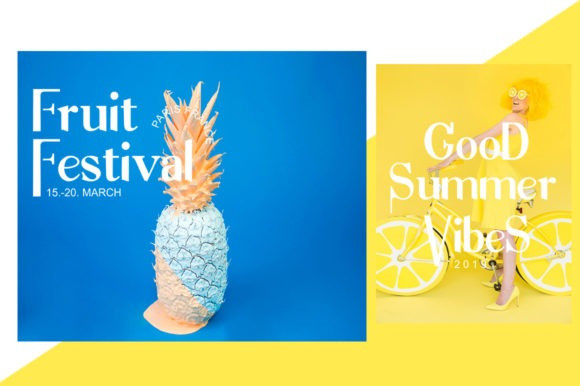
Maxthron Font
Maxthron Font is a striking display family. It includes new contemporary fonts, designed with balance and versatility. Adding outlines and repelling font styles, makes it very easy to coat these fonts perfectly.